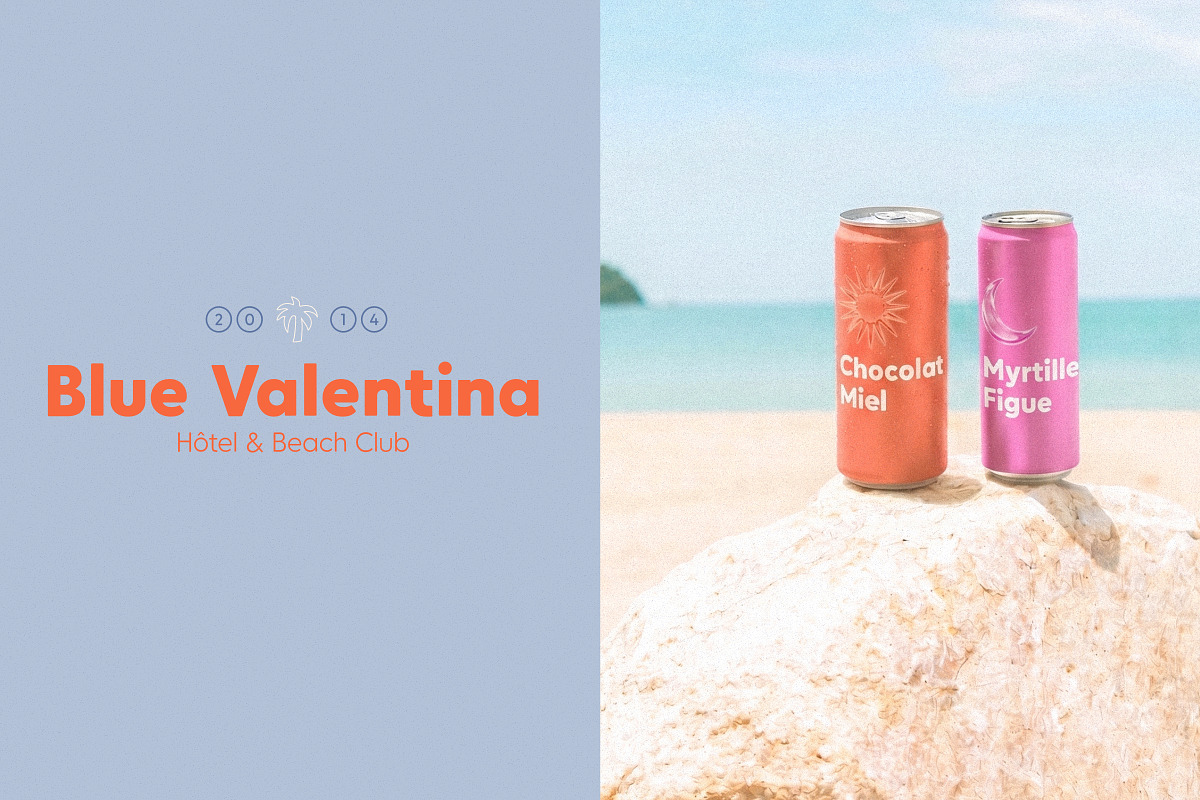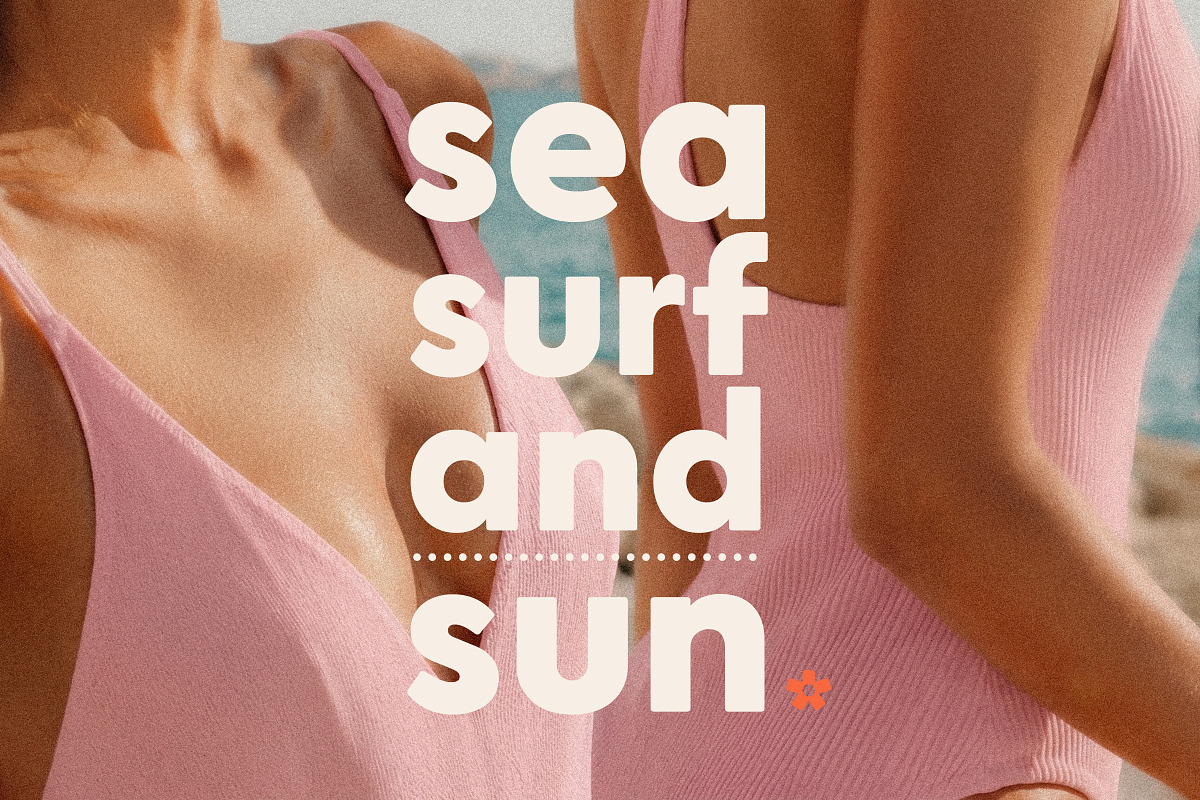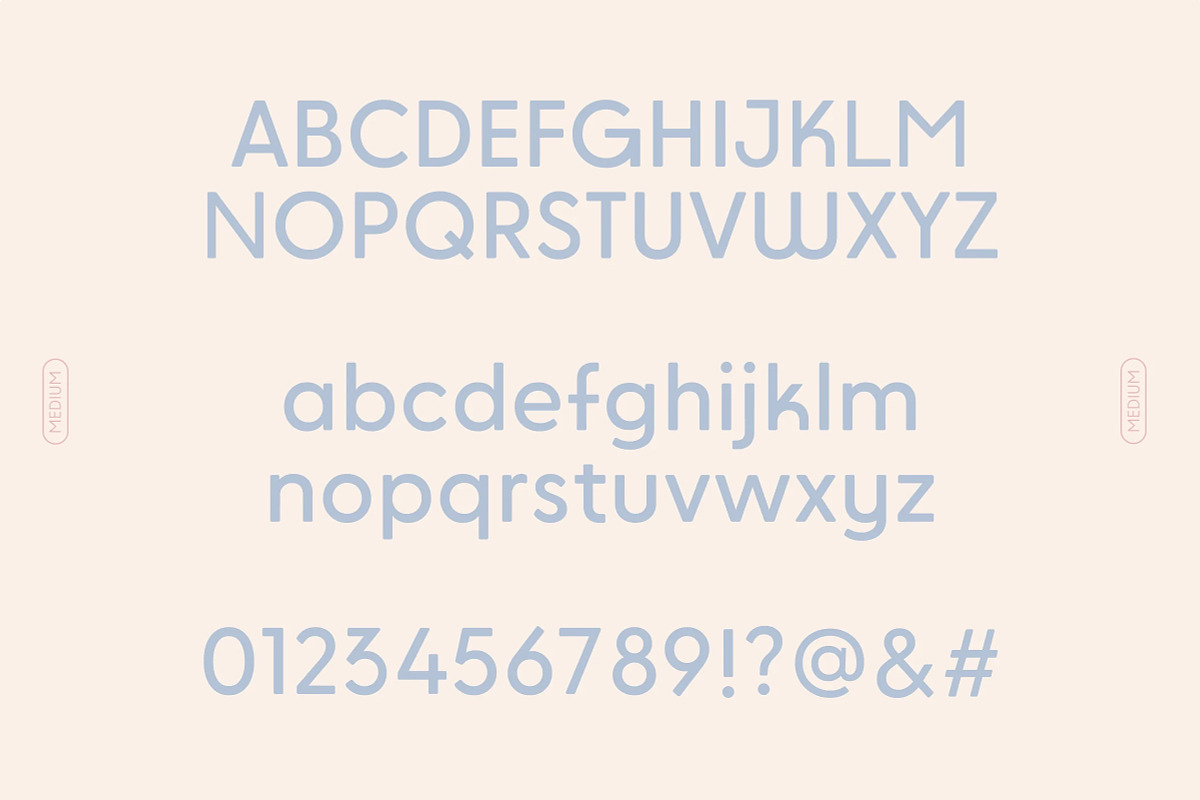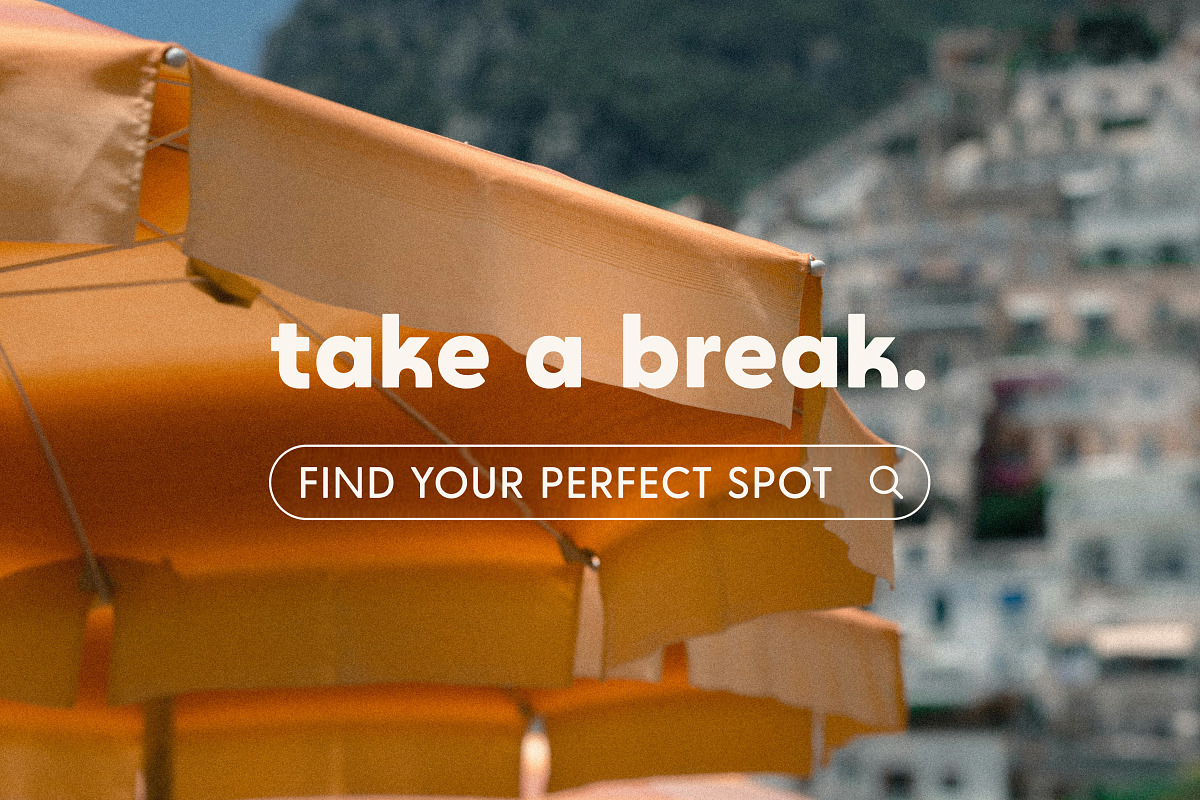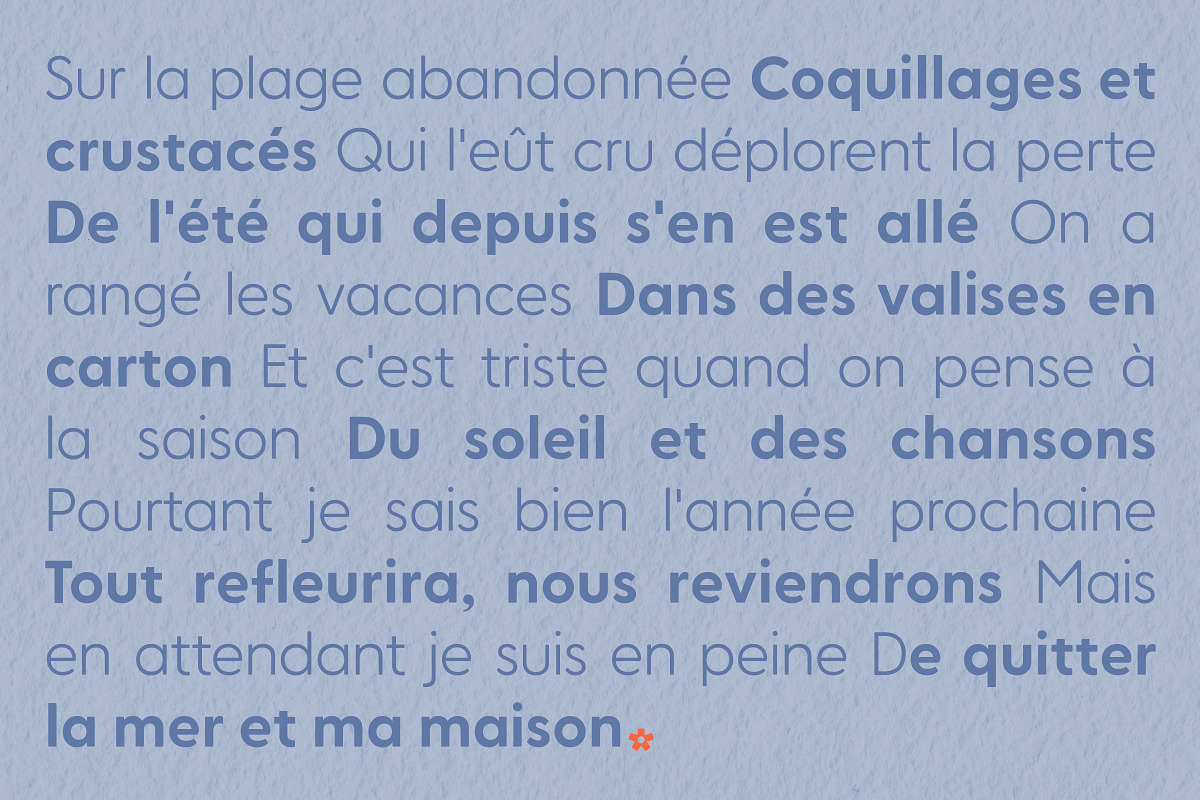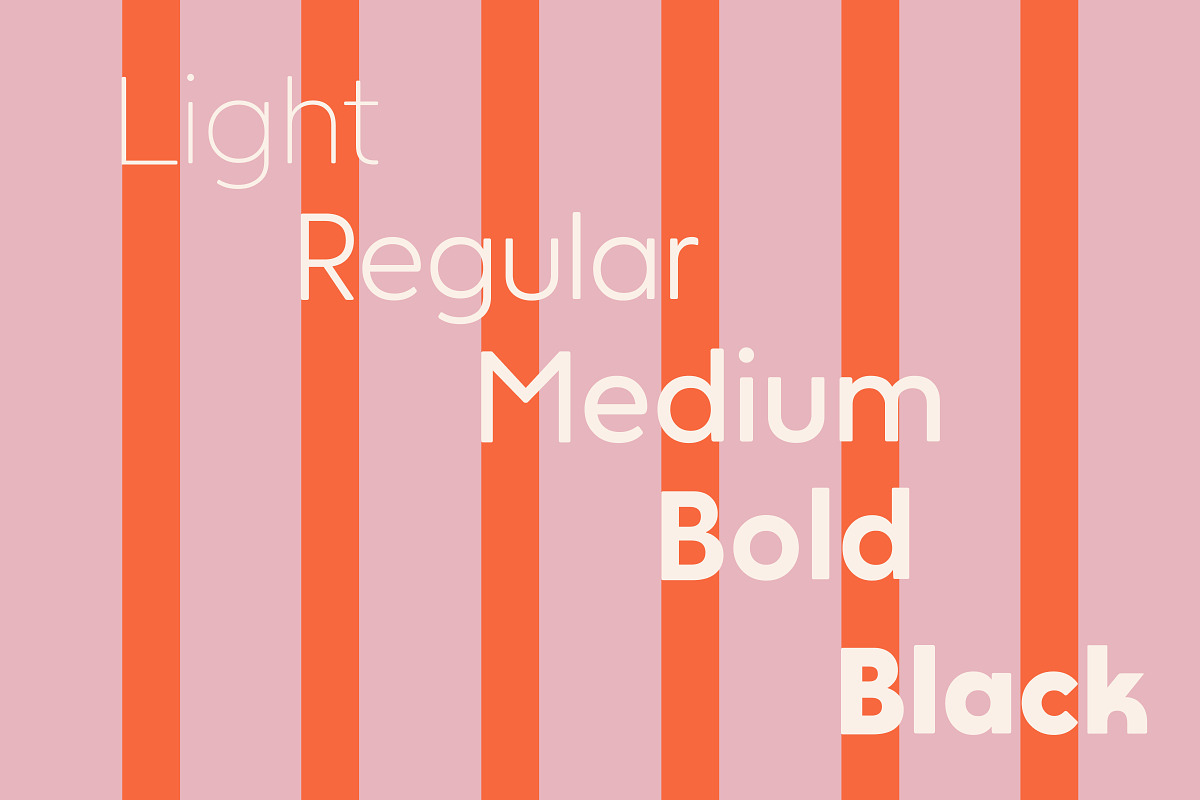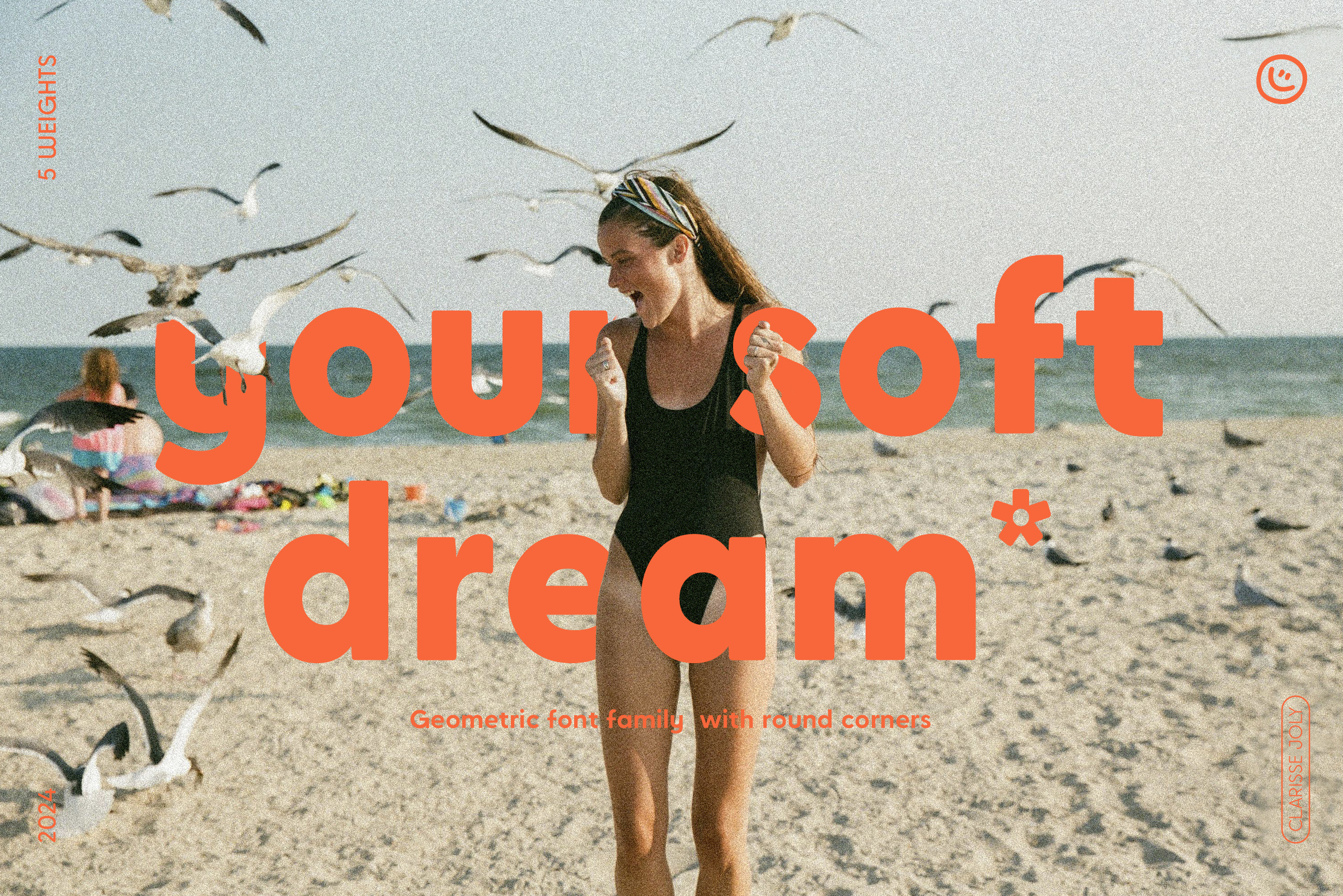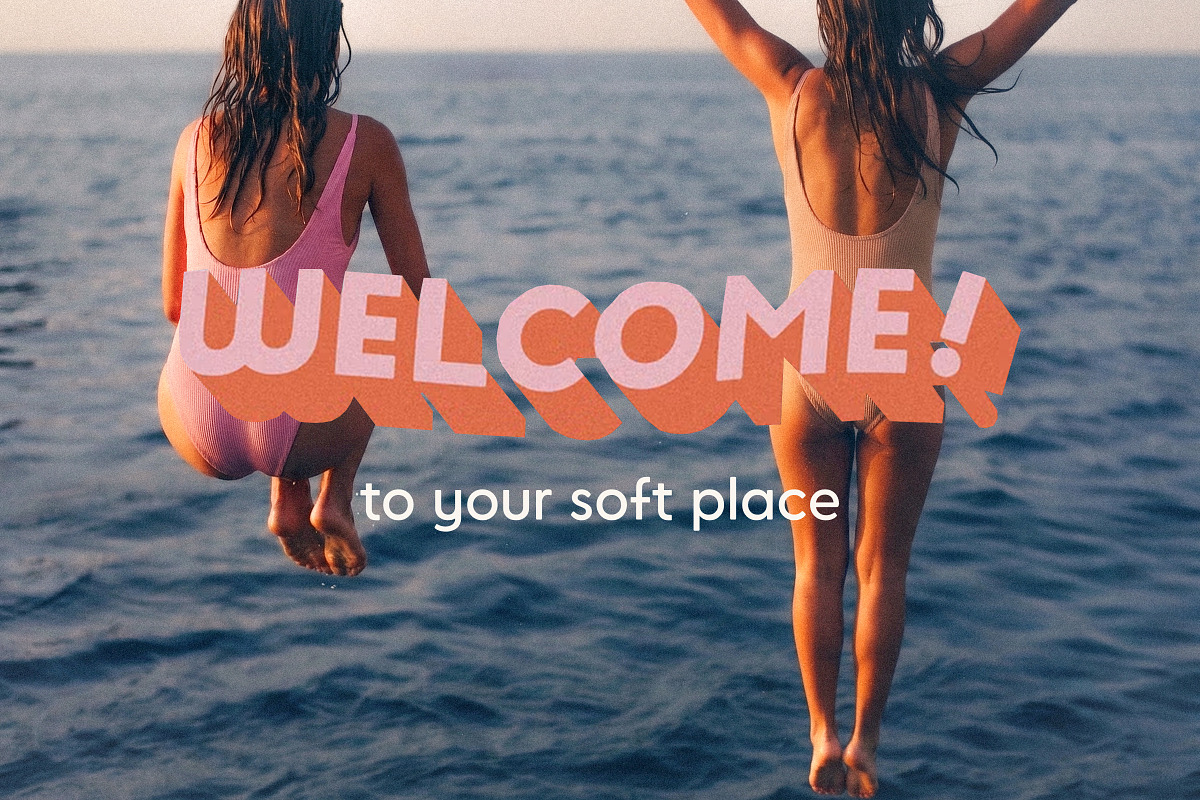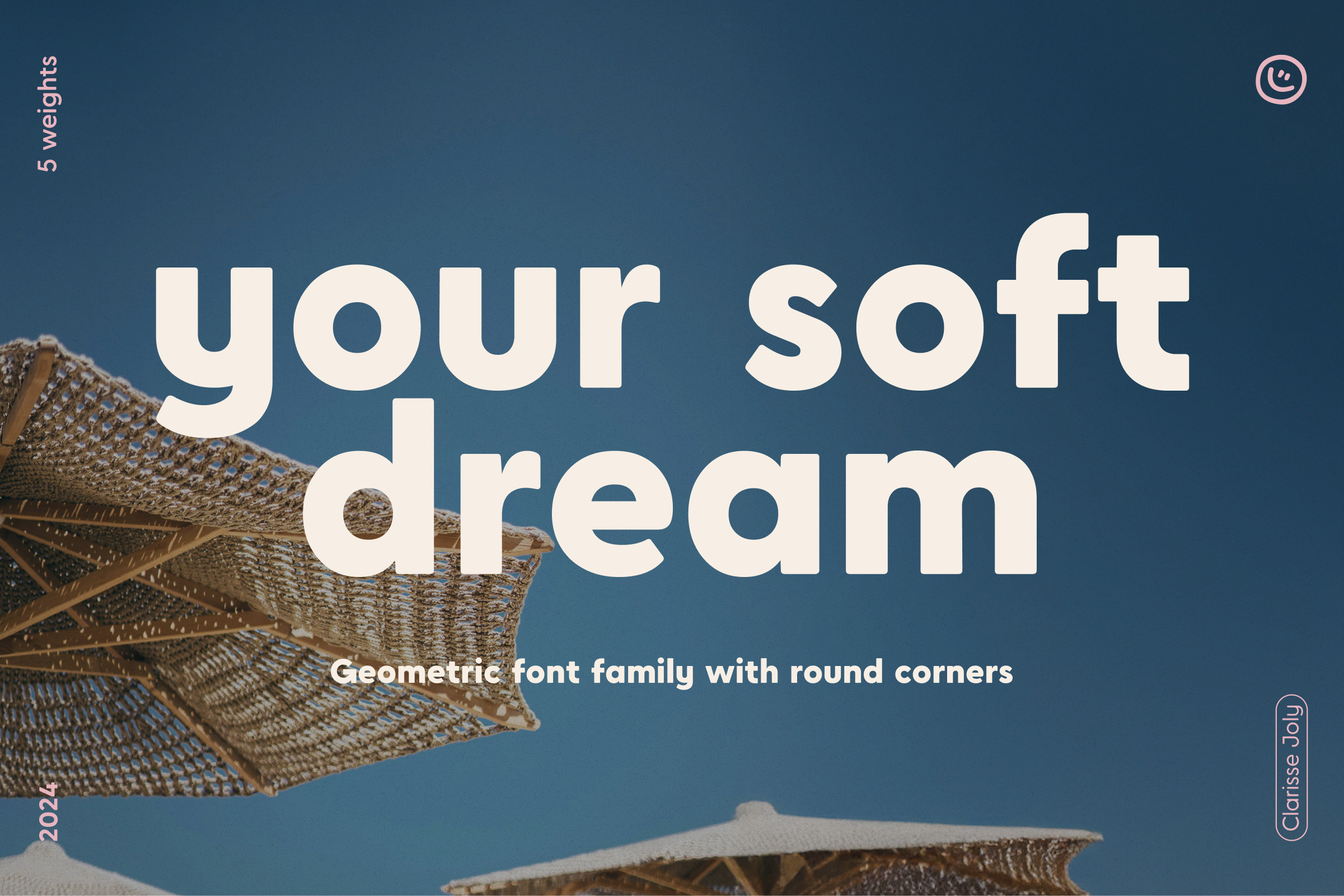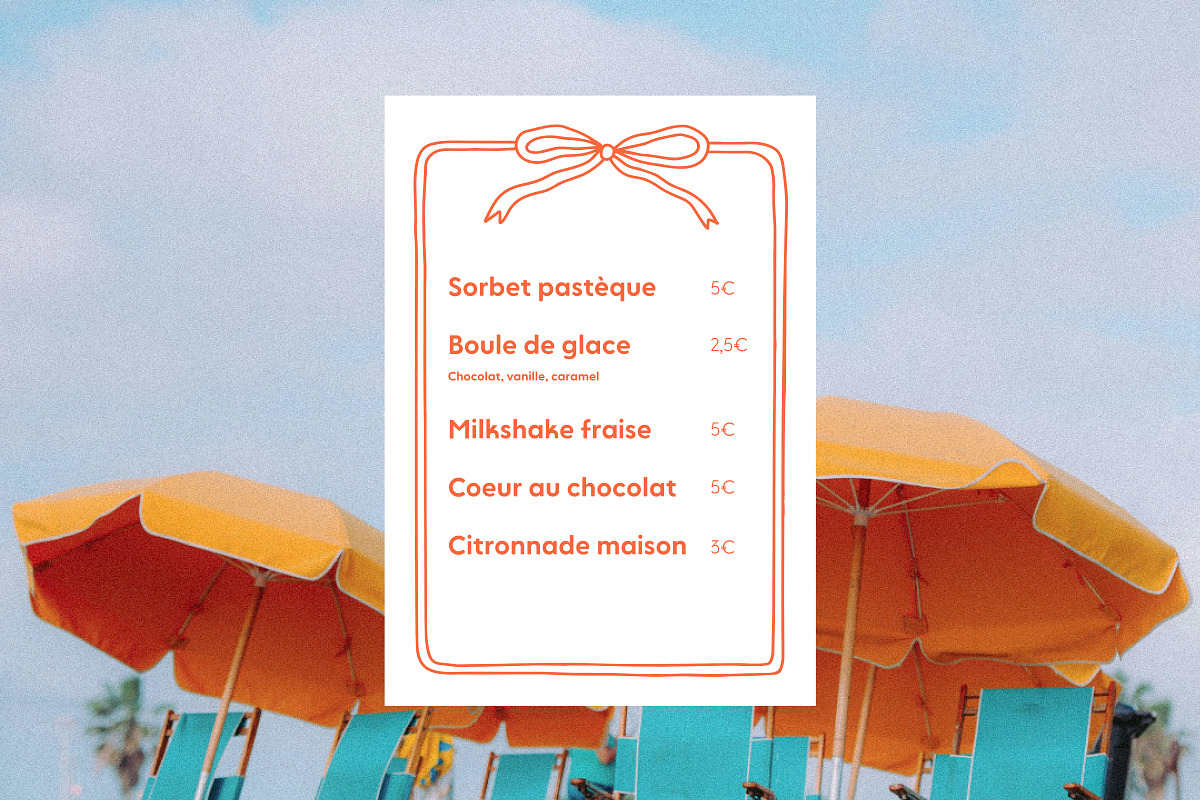
your soft dream | Unique soft font
your soft dream is a unique soft & modern geometric type family. With round corners, it's an ideal simple font for your project: logo, branding, fashion, magazines, logo, branding, invitations, wedding invitation, blog header, poster, advertisements, postcard, book, websites, etc.
your soft dream type family includes: 5 weights.